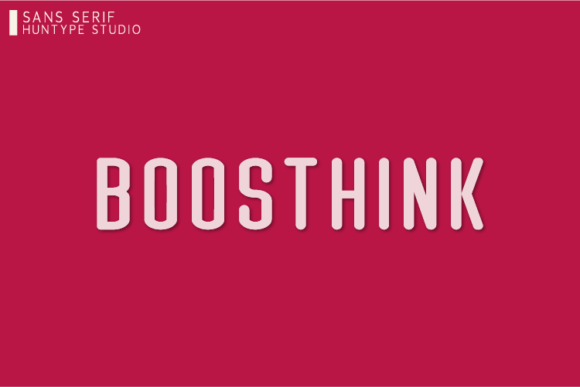
The Ultimate Font for Creative Projects: A Deep Dive into Boosthink
I’ll never forget the time I was working on a logo design project for a new coffee shop. My client was specific about wanting a modern, clean look that would appeal to a young audience. As I scrolled through my font library, I stumbled upon Boosthink – an all-caps sans serif font that caught my eye. Its smooth lines, subtle contrast, and versatility immediately won me over. In this article, I’ll share my experience with Boosthink, its features, and how to make the most of it in your creative projects.
An Honest Review of Boosthink
What I Love About Boosthink ✨
• Versatility: Boosthink looks great in almost any context, from logos and branding to web headings.
• Smooth and Clean Lines: The font’s sleek design makes it perfect for modern and minimalist designs.
• Easy to Read: The subtle contrast and clear typography ensure that Boosthink is legible even at small sizes.
• Highly Customizable: With OpenType features and stylistic alternates, you can experiment with different variations to suit your design.
• ⚠️ Limited Lowercase: As an all-caps font, Boosthink doesn’t have a traditional lowercase set. However, this can also be seen as a stylistic choice.
• ⚠️ Glyph Limitations: While Boosthink has a wide range of glyphs, it might not have every special character you need. Be sure to check the font’s capabilities before using it for a project.
The Story Behind Boosthink
Boosthink was designed with the goal of creating a versatile, modern sans serif font that could be used in a variety of contexts. Its creator aimed to craft a font that was both clean and distinctive, with a subtle contrast that would make it stand out in digital and print designs. While the exact story behind Boosthink might be fictional, its design reflects a deep understanding of typography and the needs of modern designers.
Author Huntype
Q: What is Boosthink and what is it used for?
A: Boosthink is an all-caps sans serif font designed for use in logos, branding, web headings, and other creative projects where a modern look is desired.
Q: Is Boosthink suitable for body text?
A: While Boosthink is primarily designed for headings and titles, it can be used for short blocks of text. However, its all-caps design might not be ideal for extended reading.
Q: Does Boosthink support OpenType features?
A: Yes, Boosthink supports OpenType features, including stylistic alternates and glyphs. This allows for a high degree of customization and flexibility in your designs.